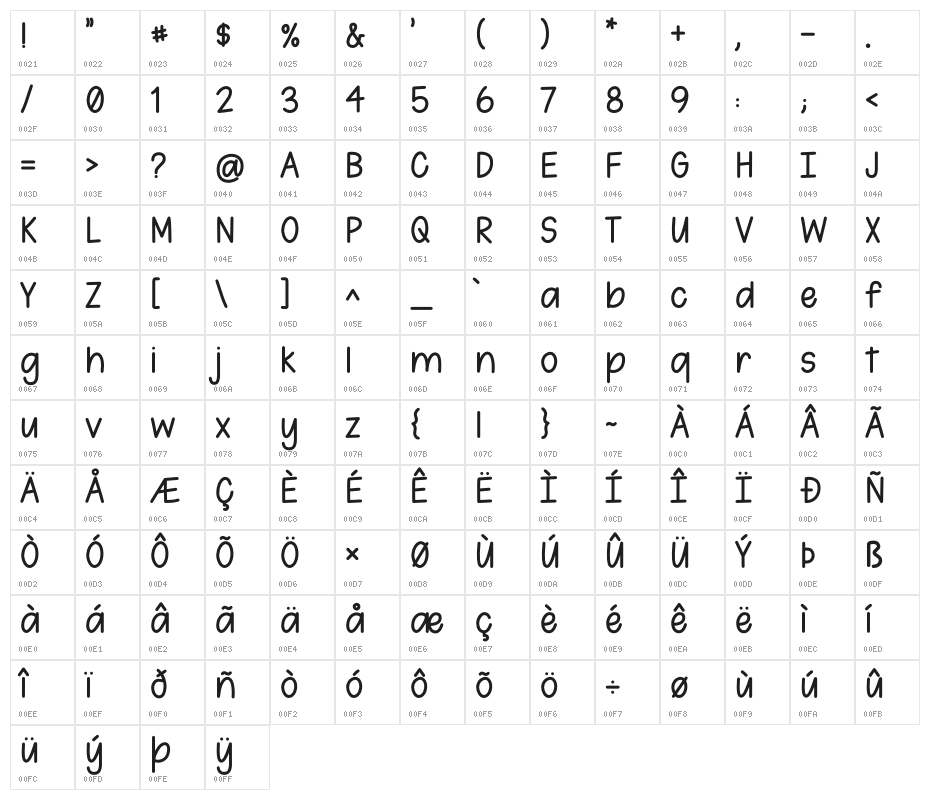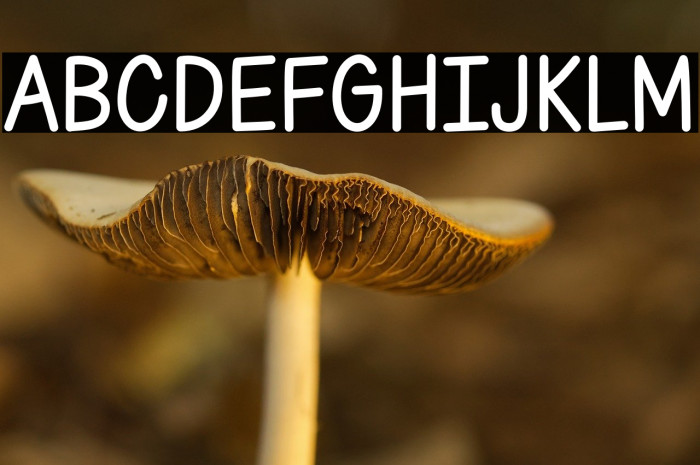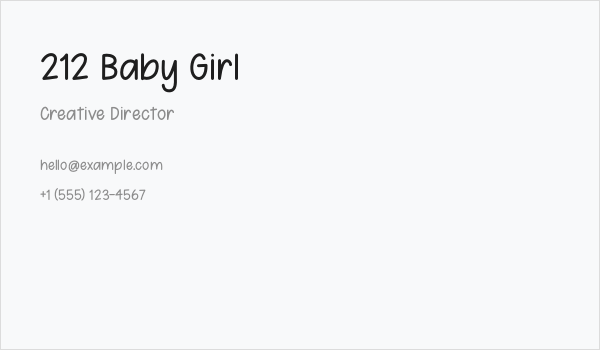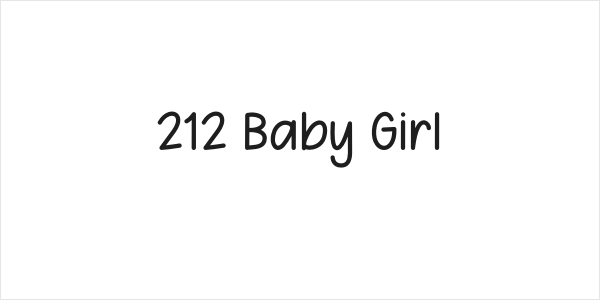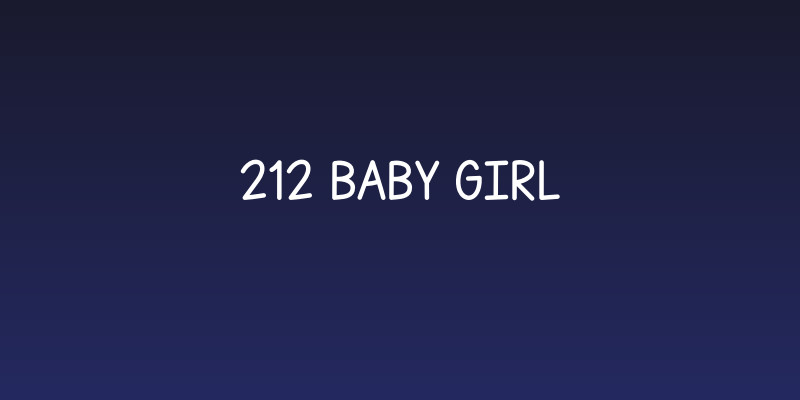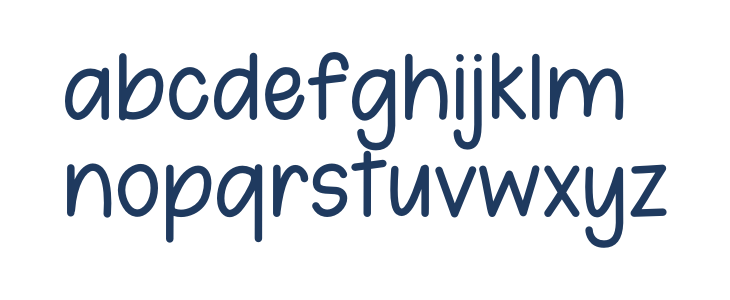
212 Baby Girl Font
212 Baby Girl Description
This playful and rounded font exudes a friendly and approachable vibe, making it ideal for projects that require a touch of whimsy and warmth. The characters are evenly spaced with a consistent stroke width, contributing to its legibility and charm. The uppercase and lowercase letters maintain a uniform style, with smooth curves and a slightly informal appearance. The numerals and special characters are designed to match the overall aesthetic, ensuring a cohesive look across different text elements. This font is particularly suitable for children's materials, casual branding, and any design that aims to convey a sense of fun and lightheartedness.
| Proposed Projects | Ideal for children's books, playful branding, greeting cards, and casual invitations. |